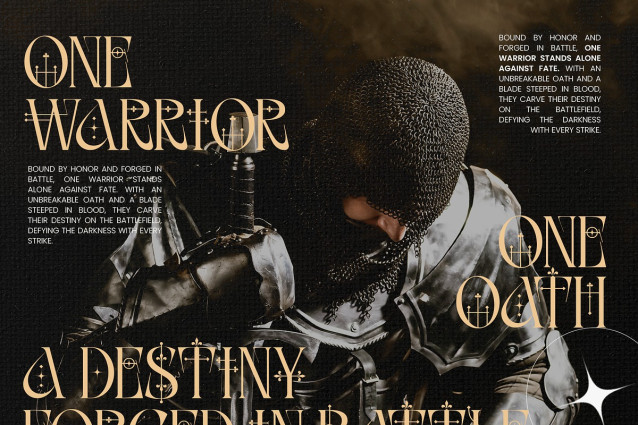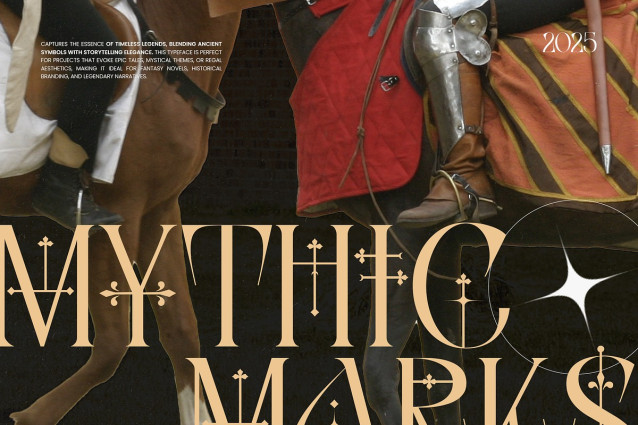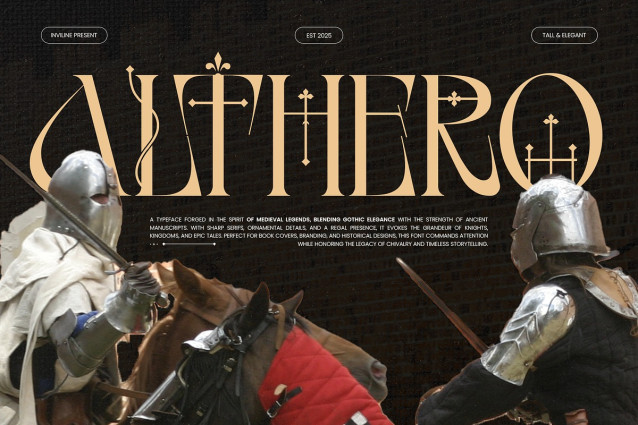
Althero Font
Althero Font – Serif Decorative Font is a beautifully crafted typeface that merges classic serif structure with ornate, decorative touches. Designed to stand out, Althero offers a perfect blend of vintage charm and modern sophistication, making it ideal for high-impact visuals. Whether you’re designing elegant logos, branding projects, editorial layouts, product packaging, or wedding invitations, Althero adds a bold yet refined statement to your work. With its stylish curves and distinctive character, this font brings an artistic flair and timeless feel to any design.